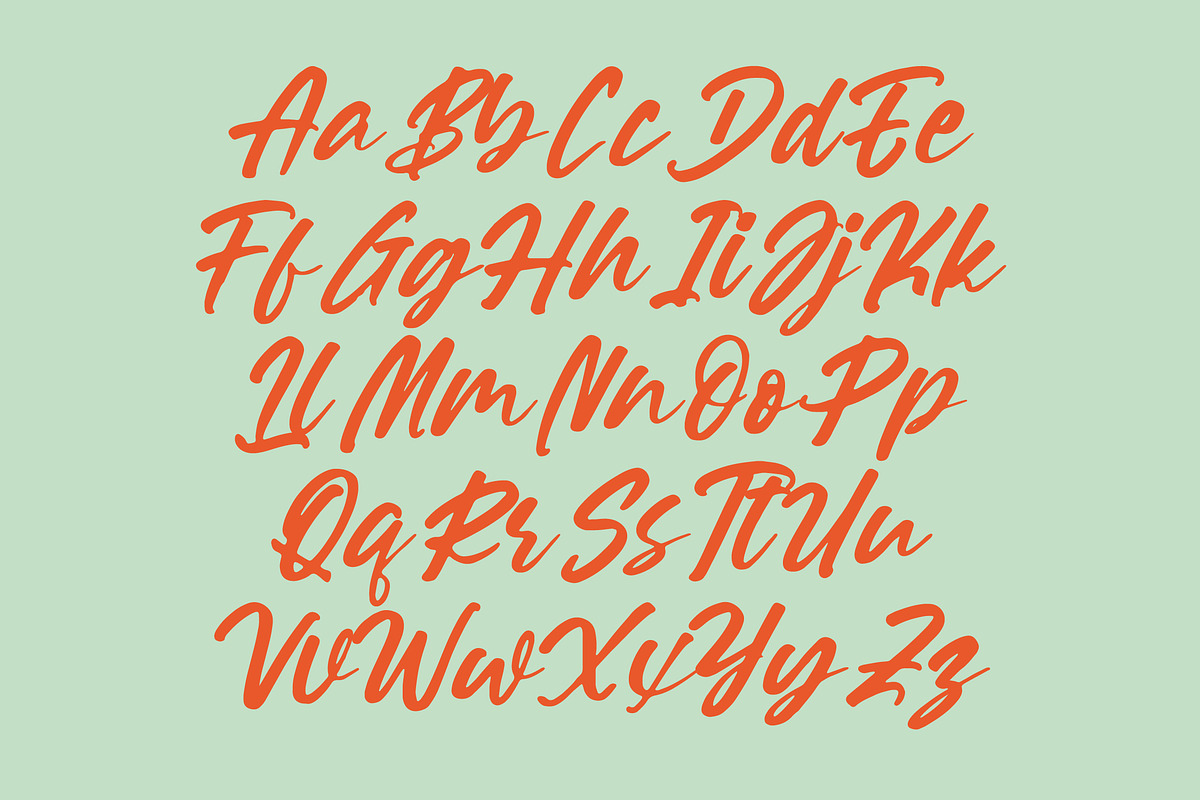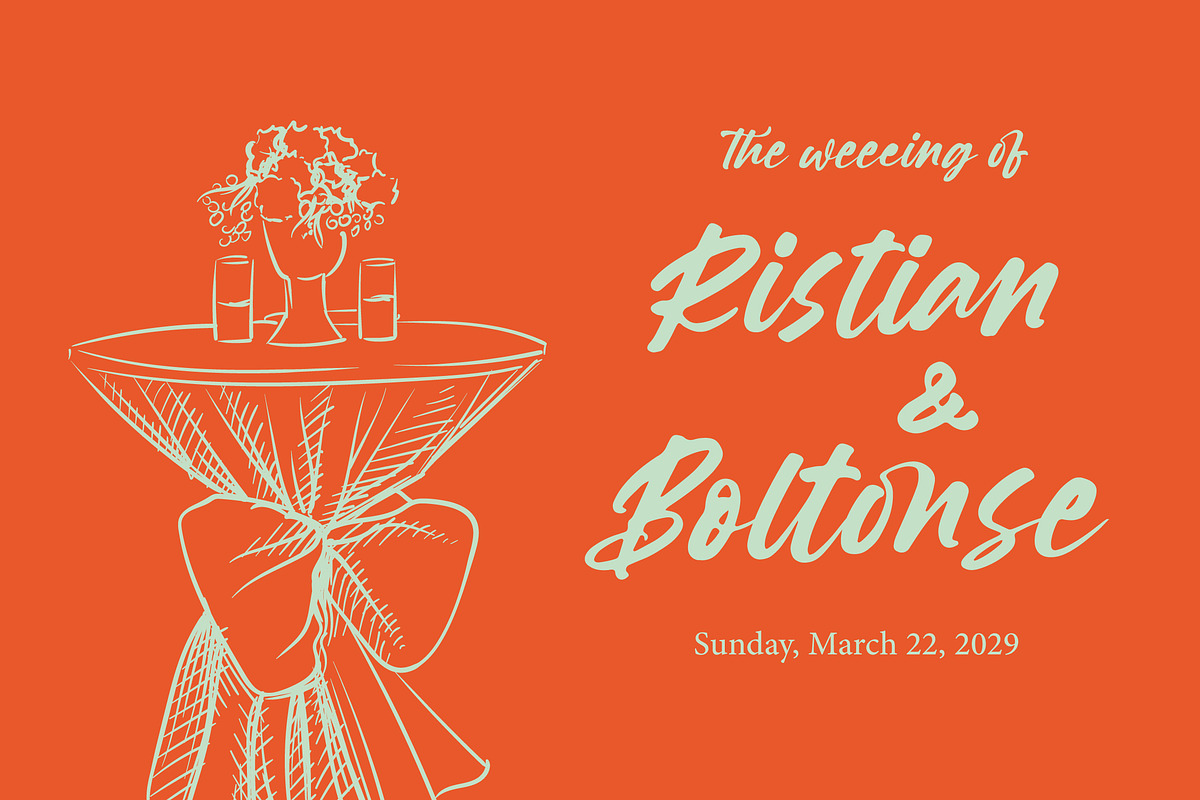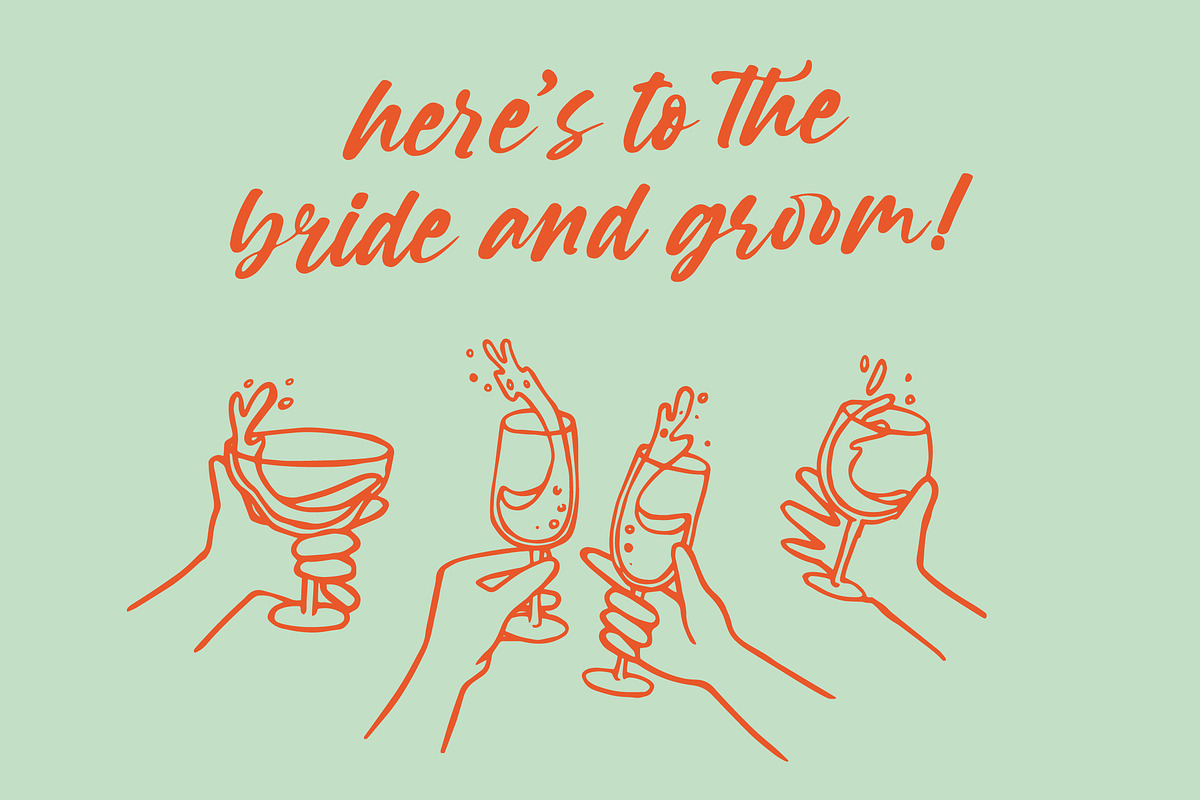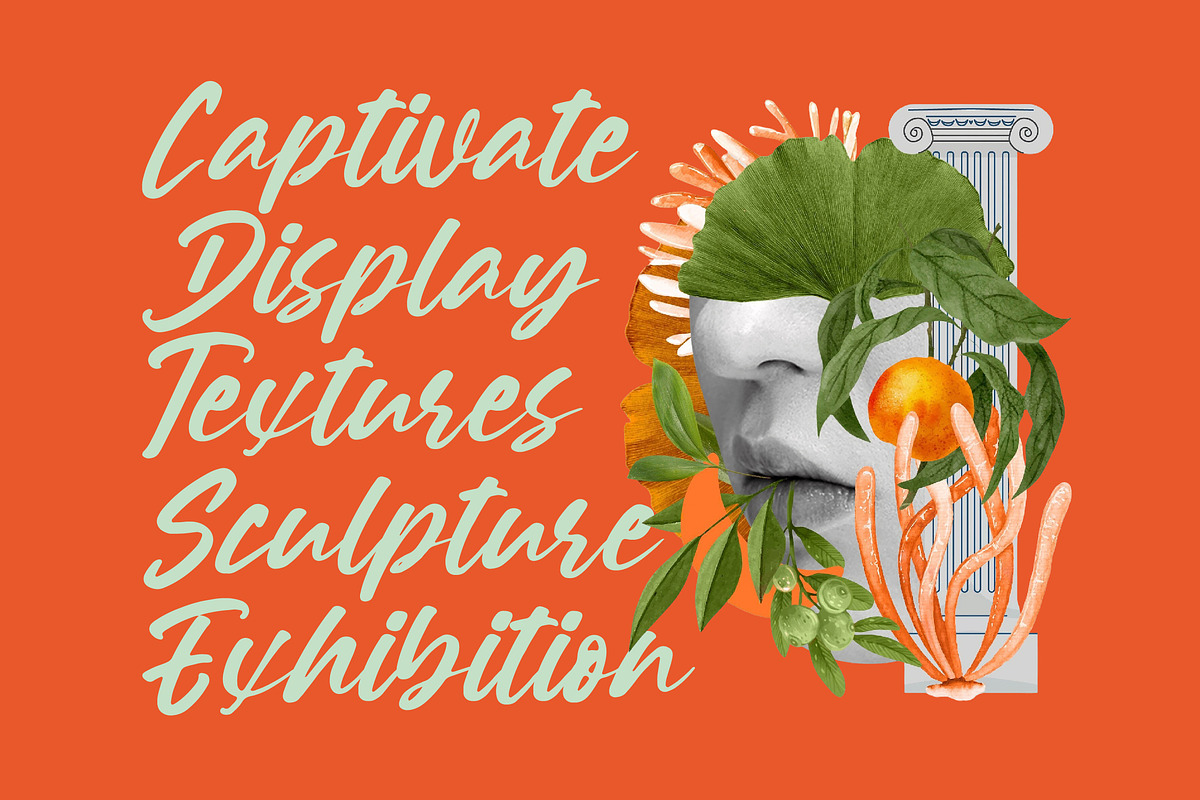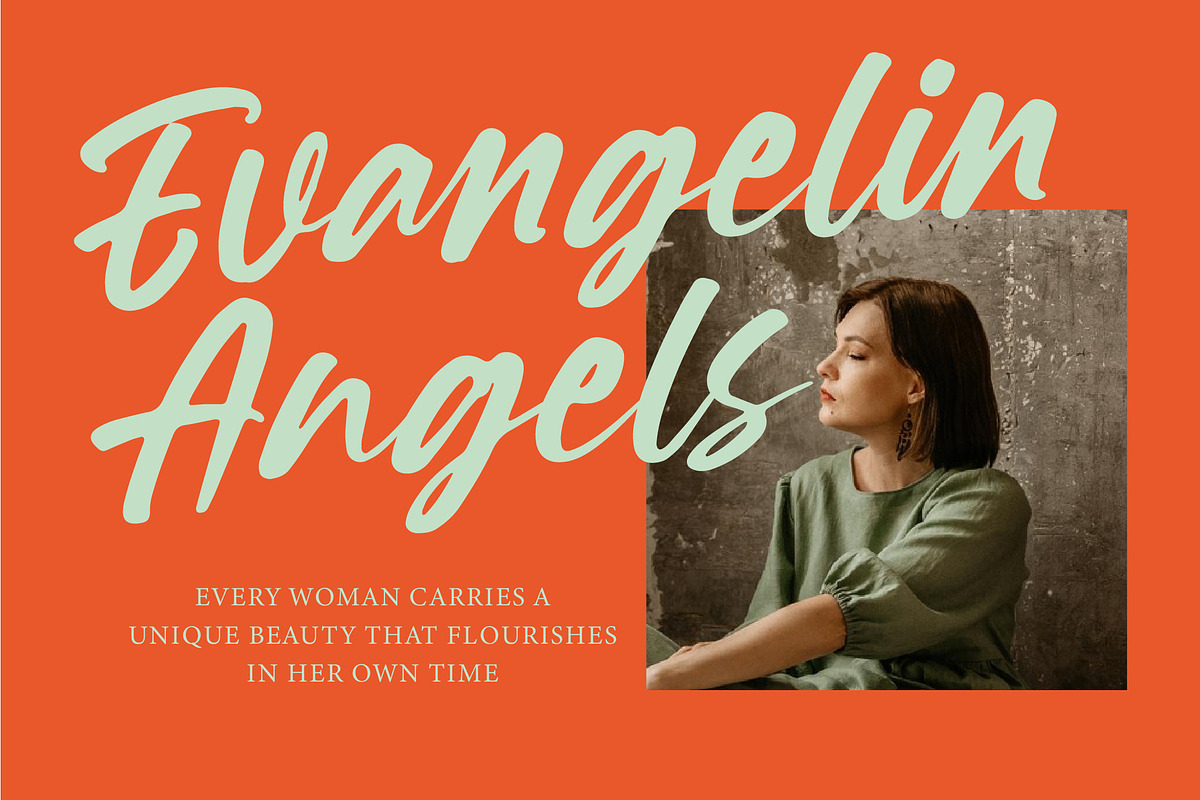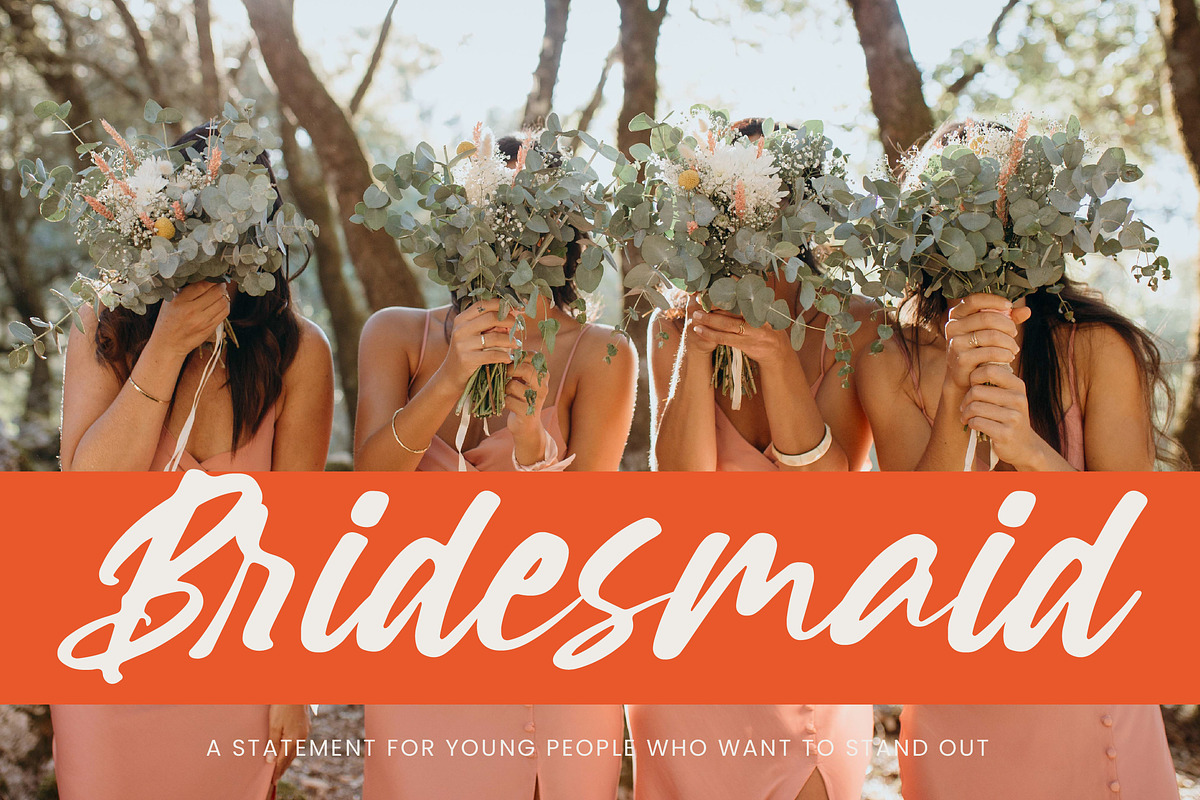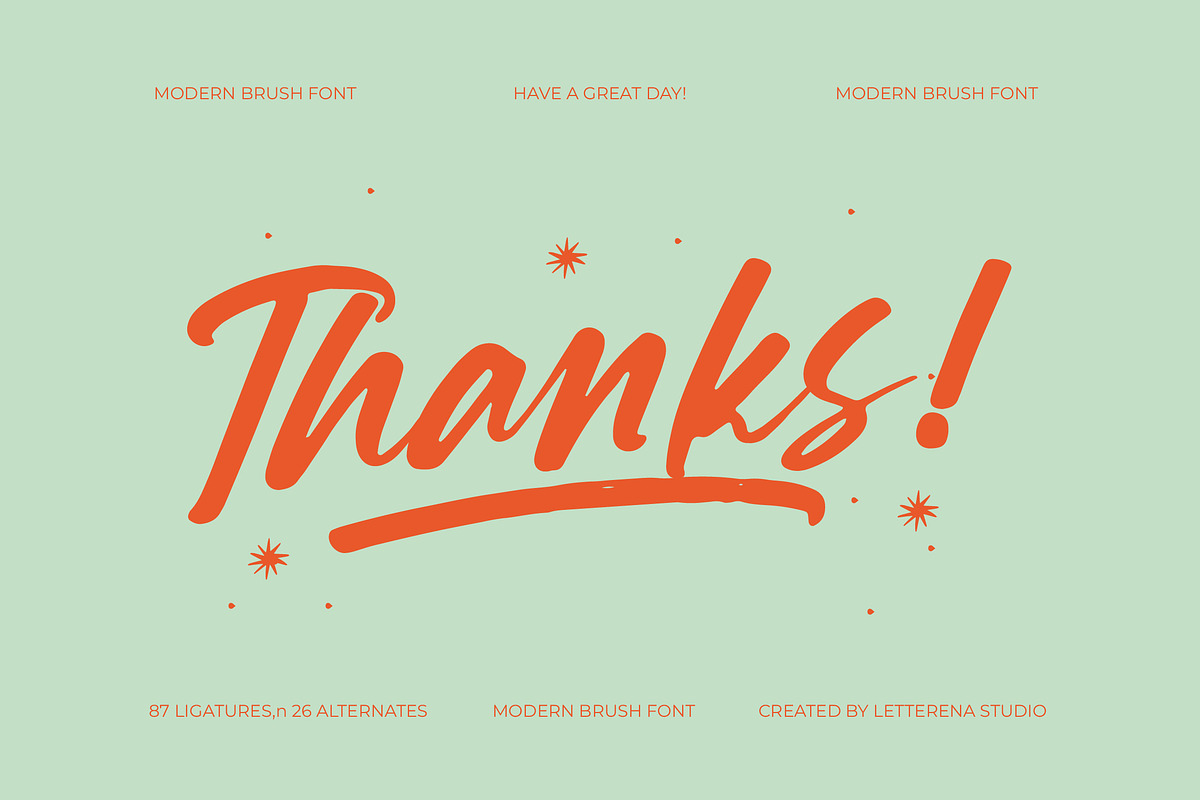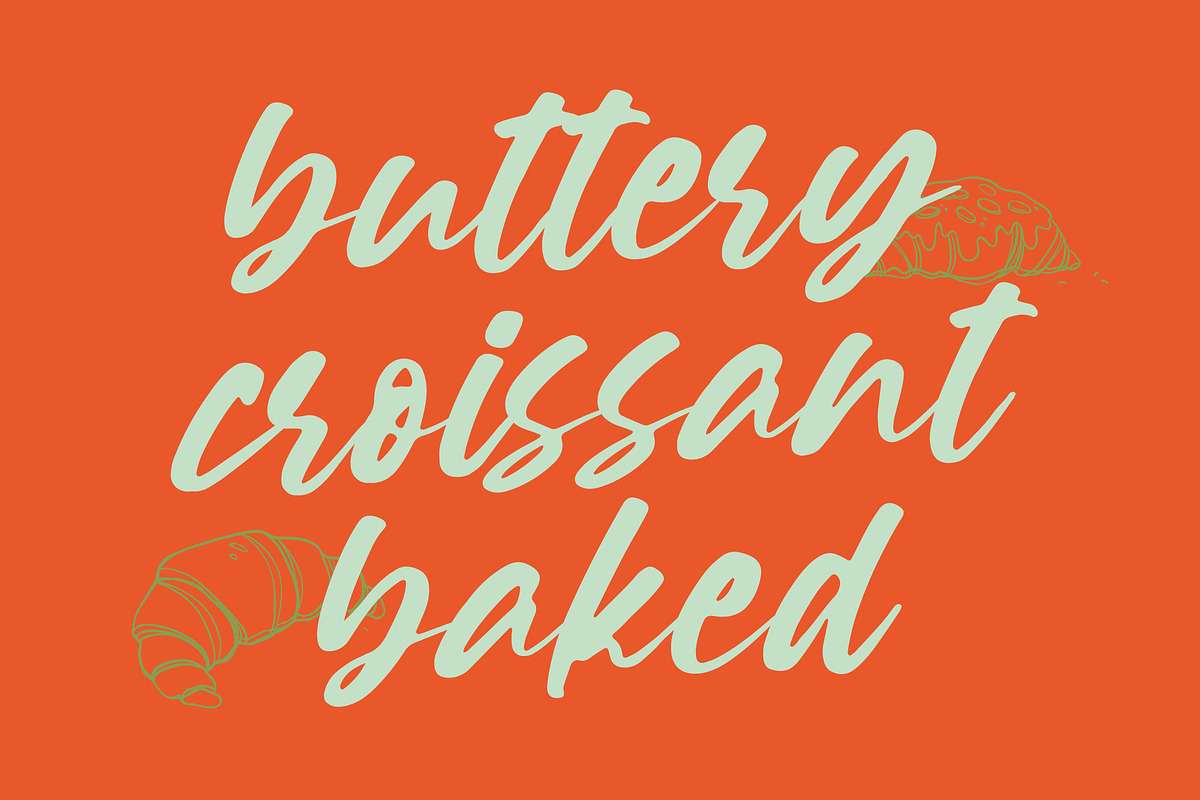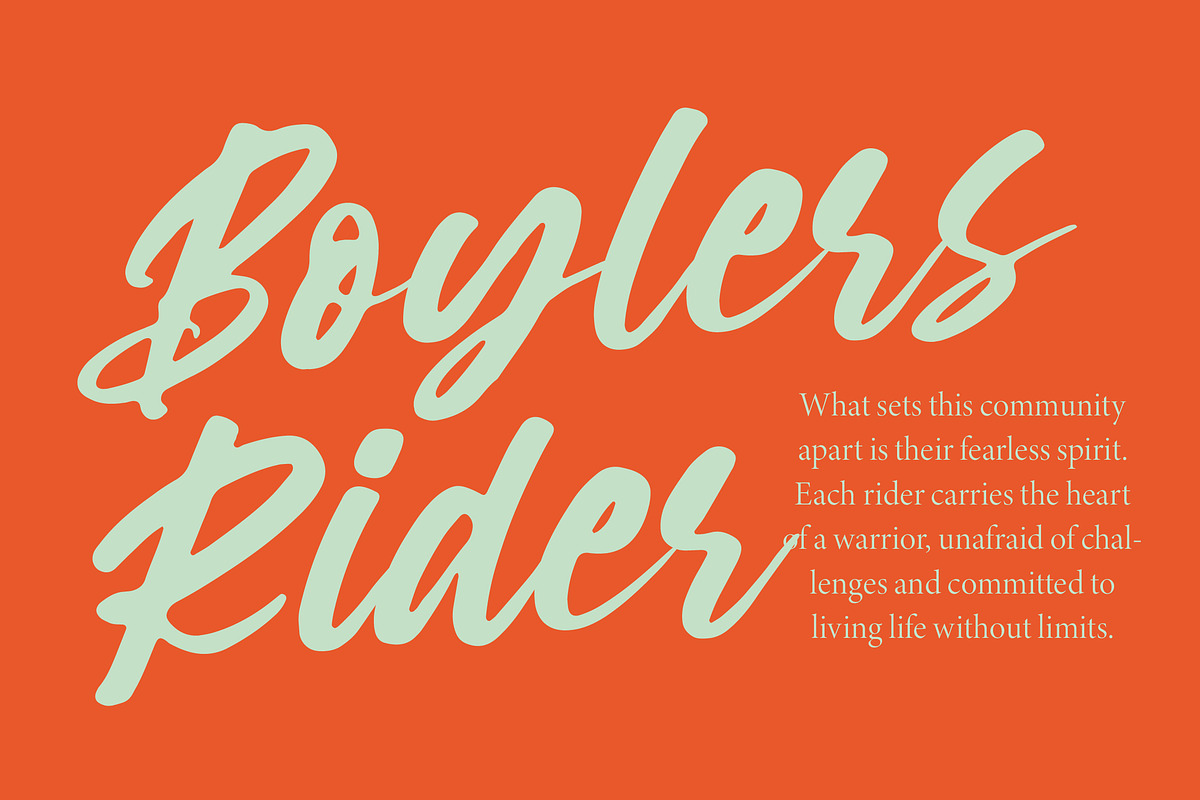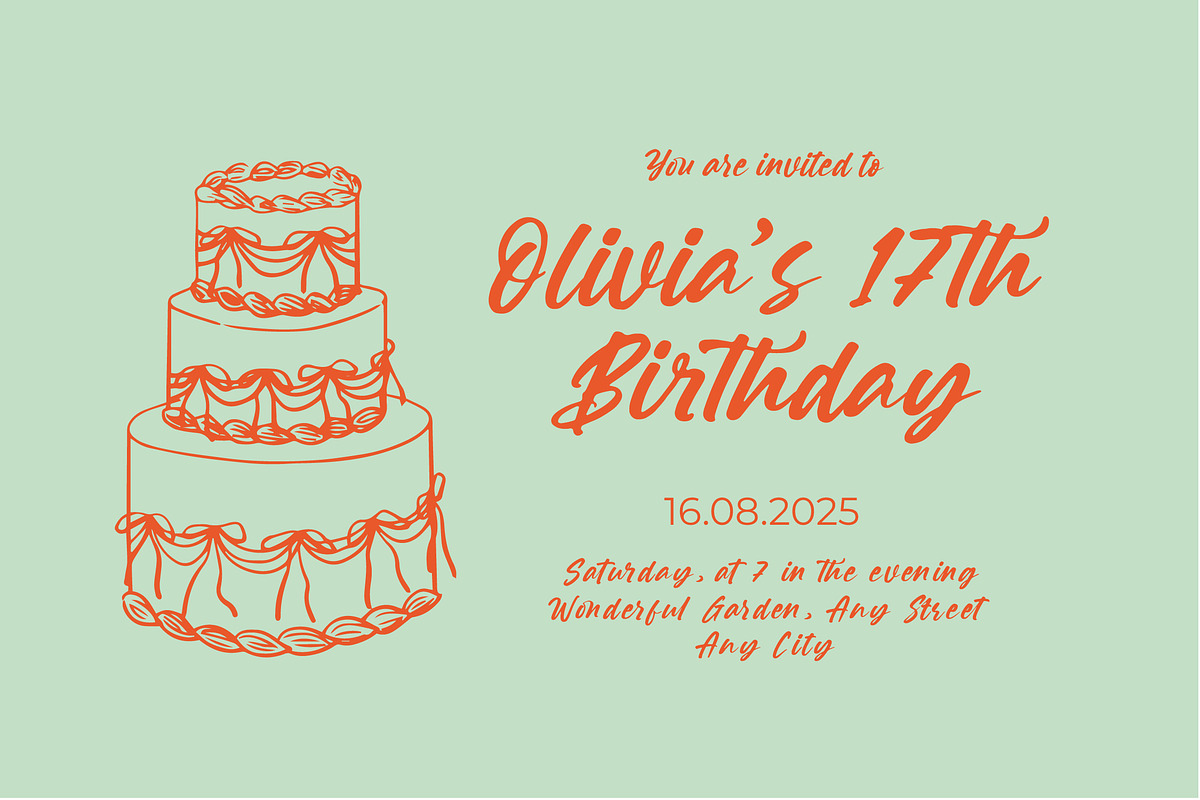
Souther Daleska Modern Brush Font
Souther Daleska - Modern Brush Font , Souther Daleska is a modern brush script font with a dynamic and natural hand-painted feel. Featuring 76 ligatures and 52 alternates in both regular and italic styles, it offers a bold and expressive brush texture perfect for logos, posters, apparel, packaging, and social media visuals. With its energetic strokes and authentic handcrafted charm, Souther Daleska brings creativity and personality to every design.